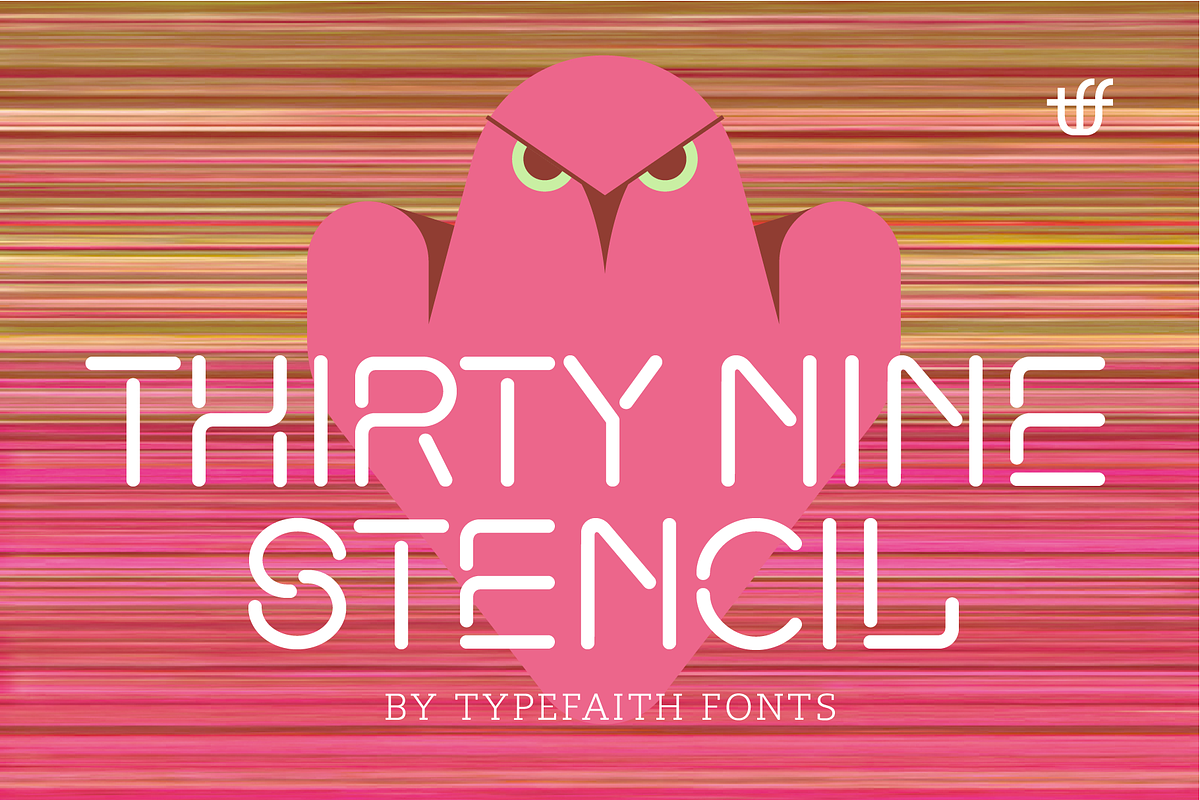
ThirtyNine-Stencil Font Free Download is a bold and industrial-type typeface that brings a strong, edgy look to your designs. With its stencil-inspired cuts and clean lines, ThirtyNine-Stencil is perfect for military-themed graphics, urban branding, posters, t-shirt designs, and anything that needs a rugged, modern edge.
Designed to reflect a sense of structure and toughness, ThirtyNine-Stencil Font Free Download combines precision with boldness. Its stencil-like cuts give it an industrial, utilitarian feel, making it ideal for designs that need a distinct, commanding presence.